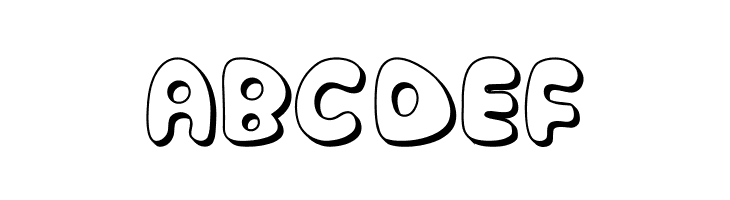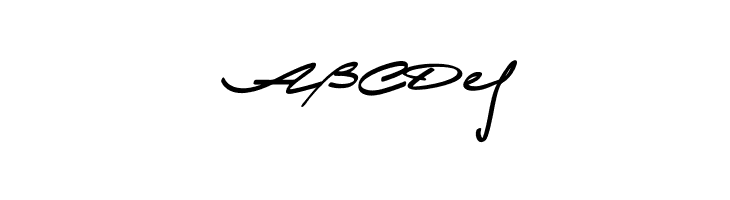
A playful, bubble-like font with thick, rounded edges and a hollow effect.
A cursive, handwritten font with elegant, flowing strokes and a dynamic style.